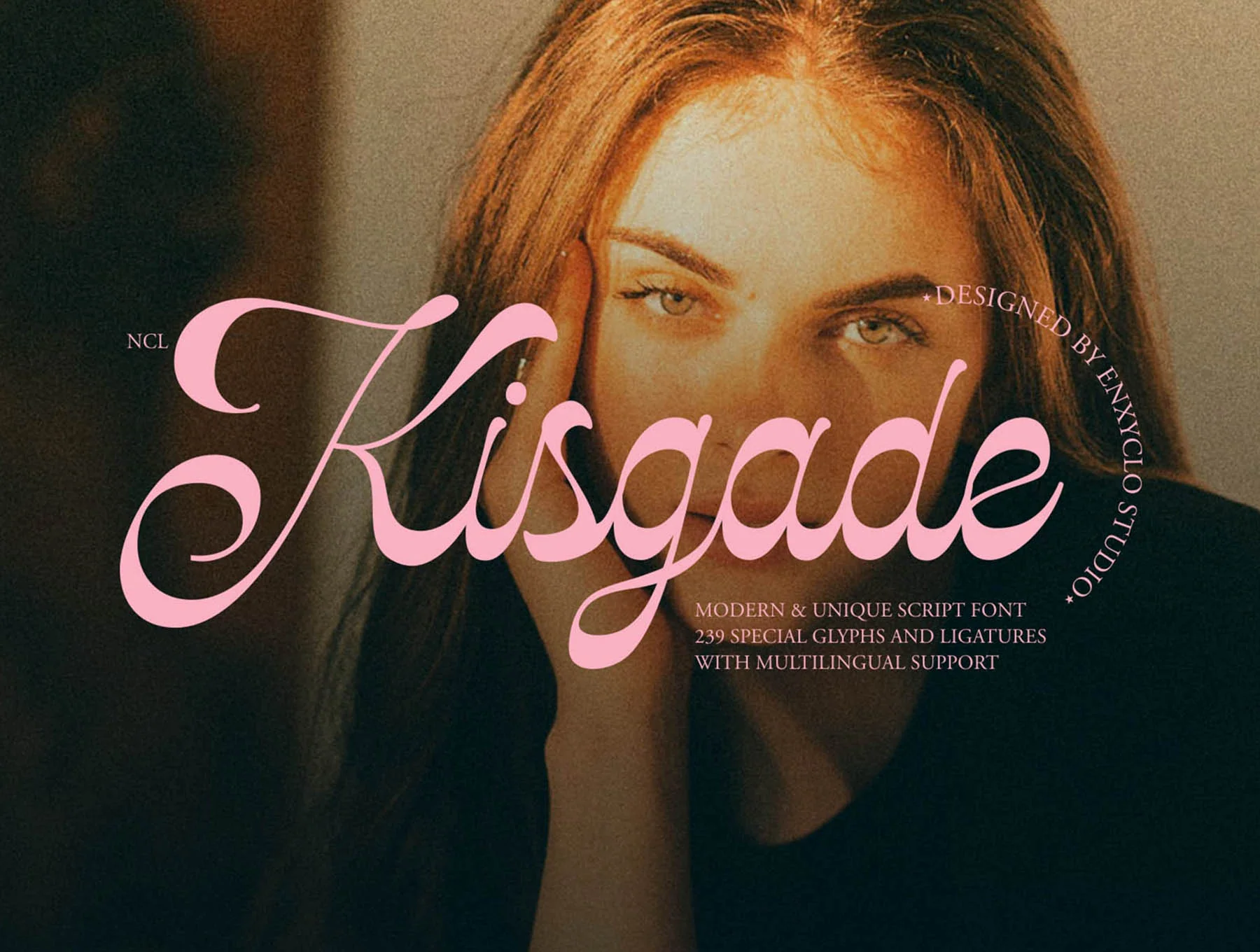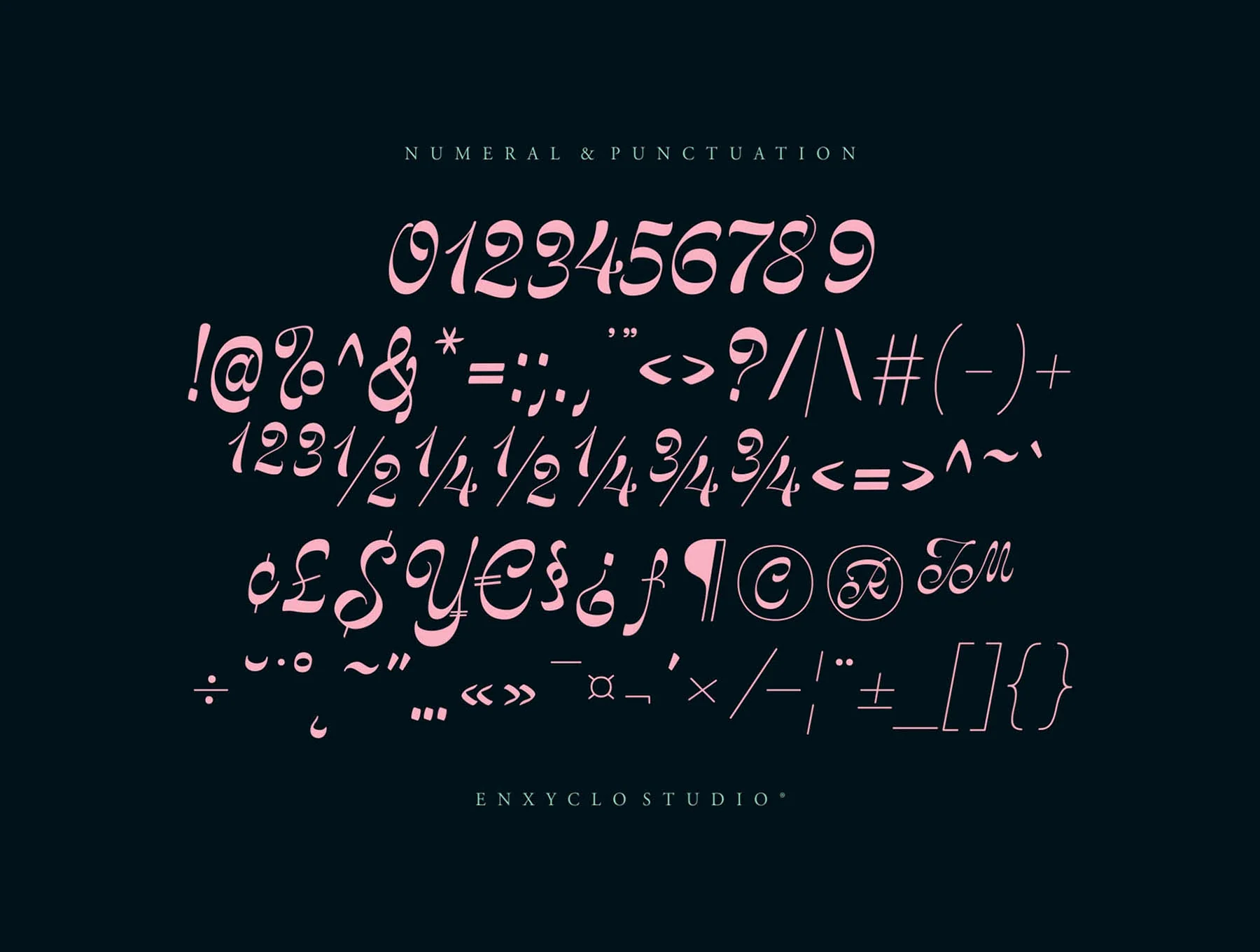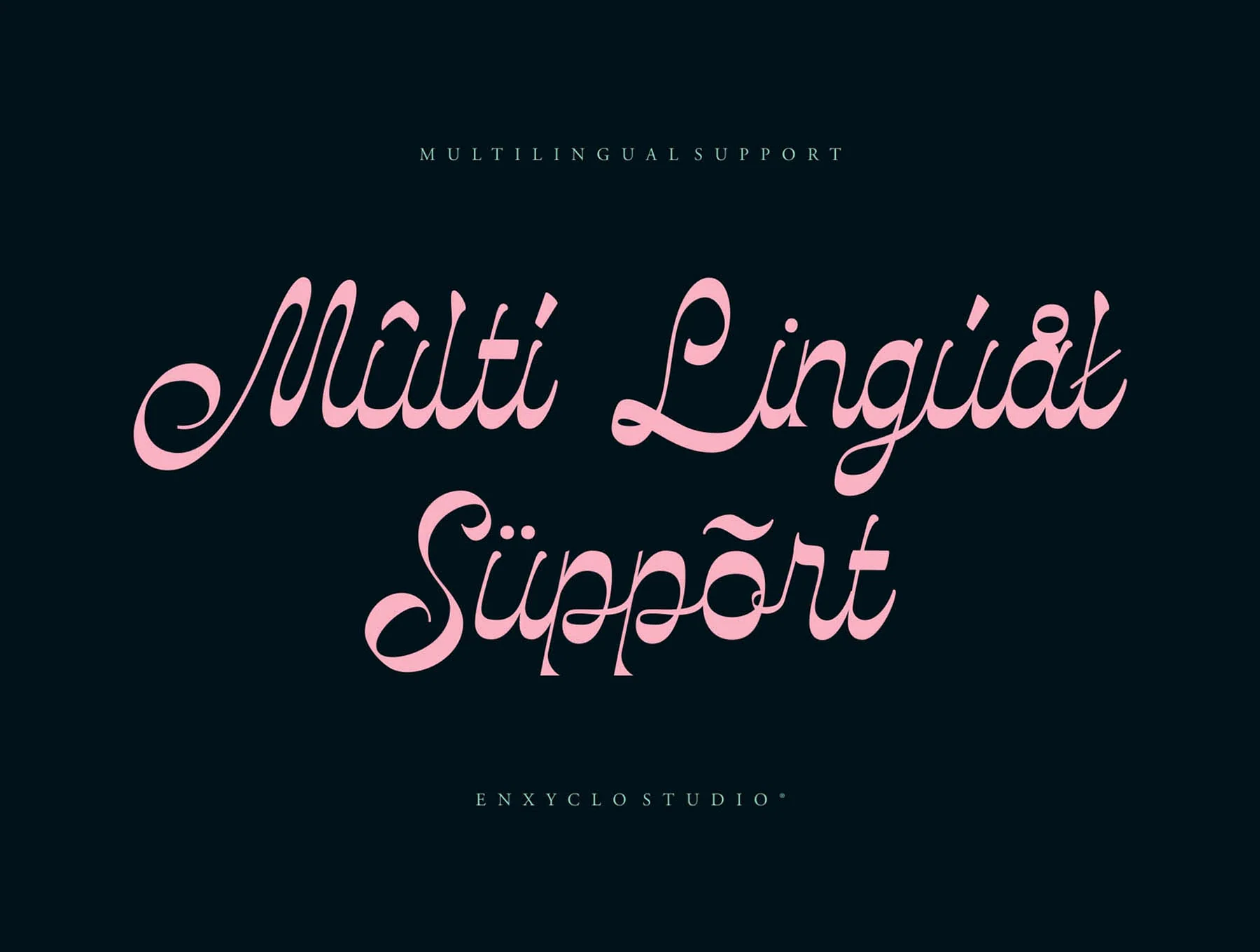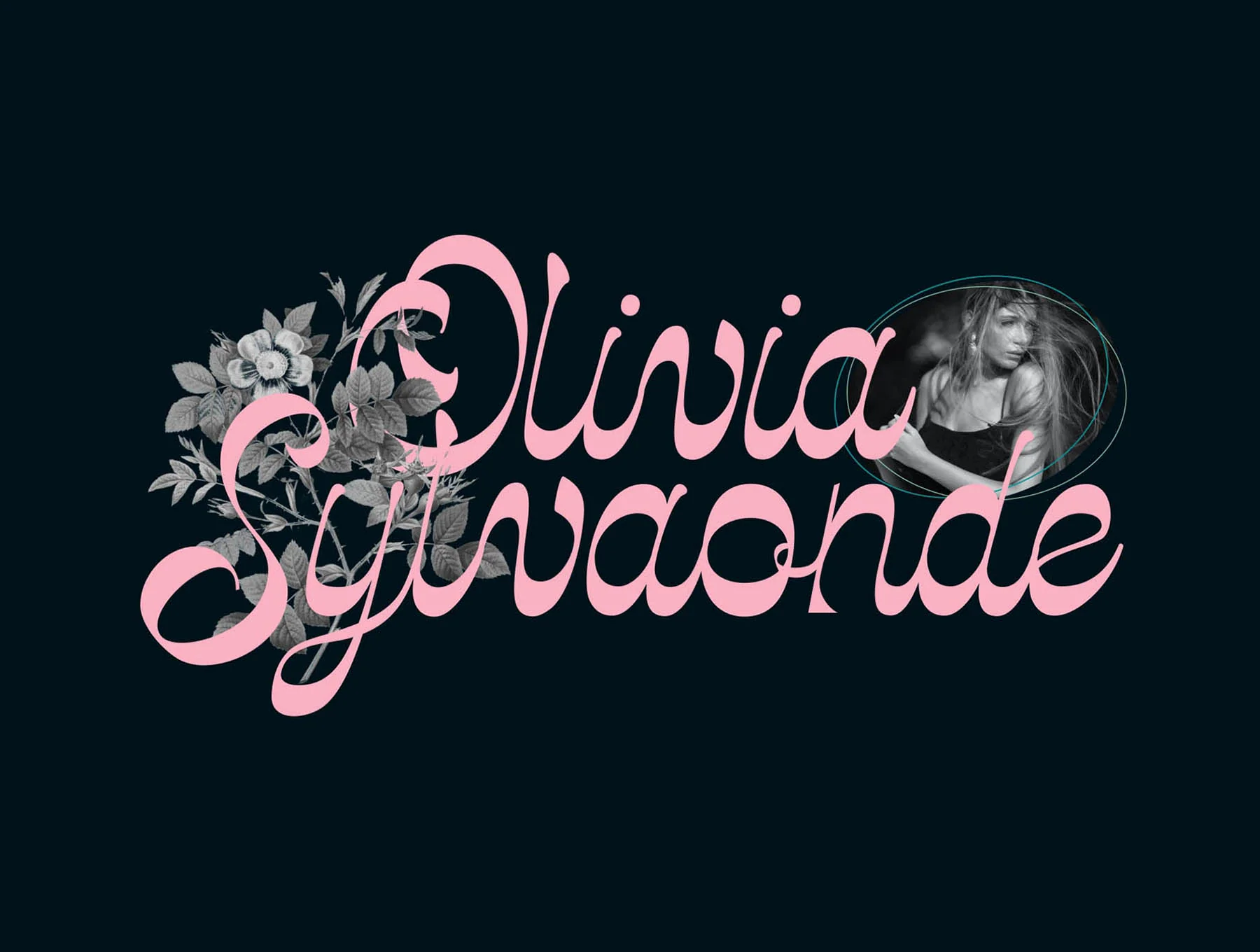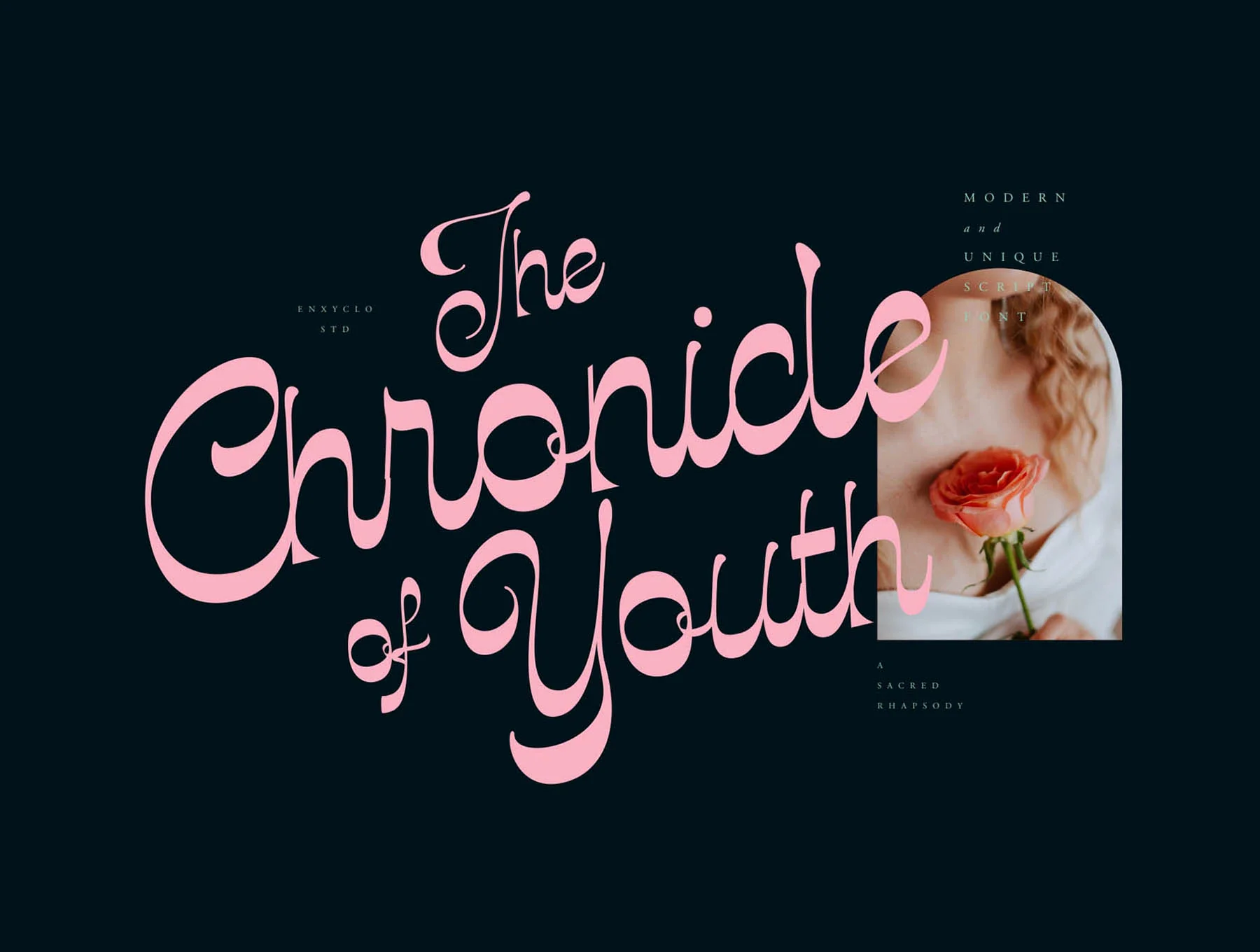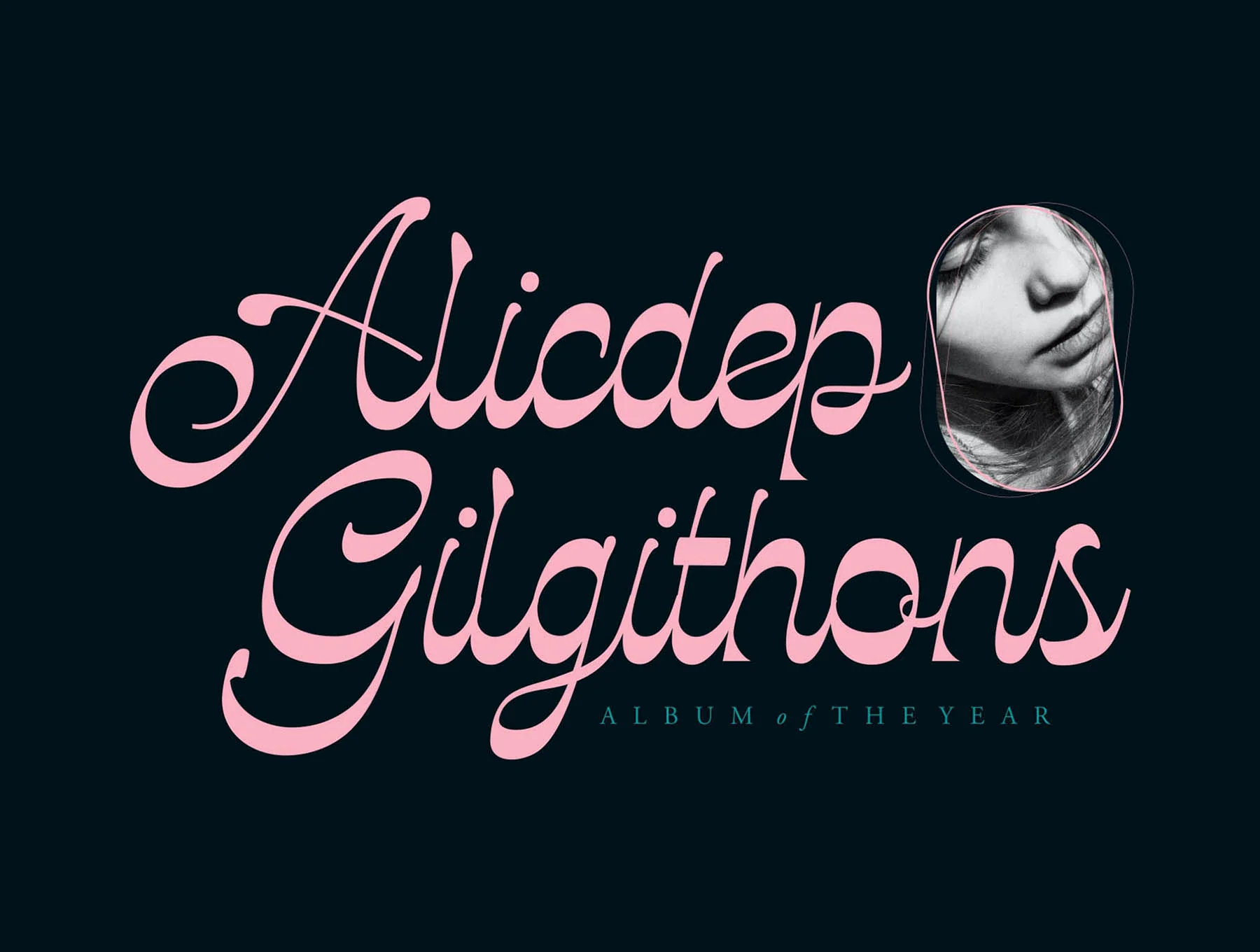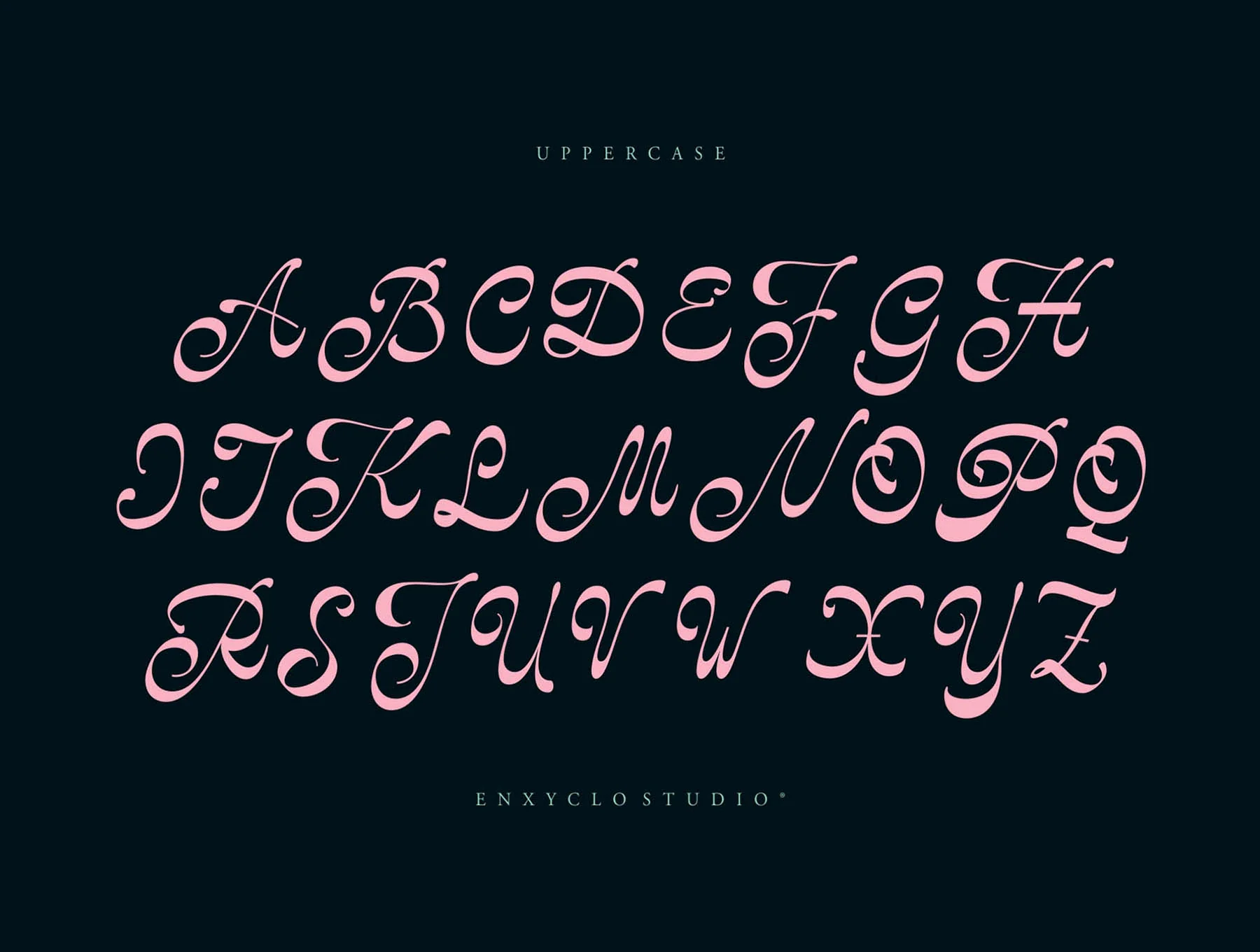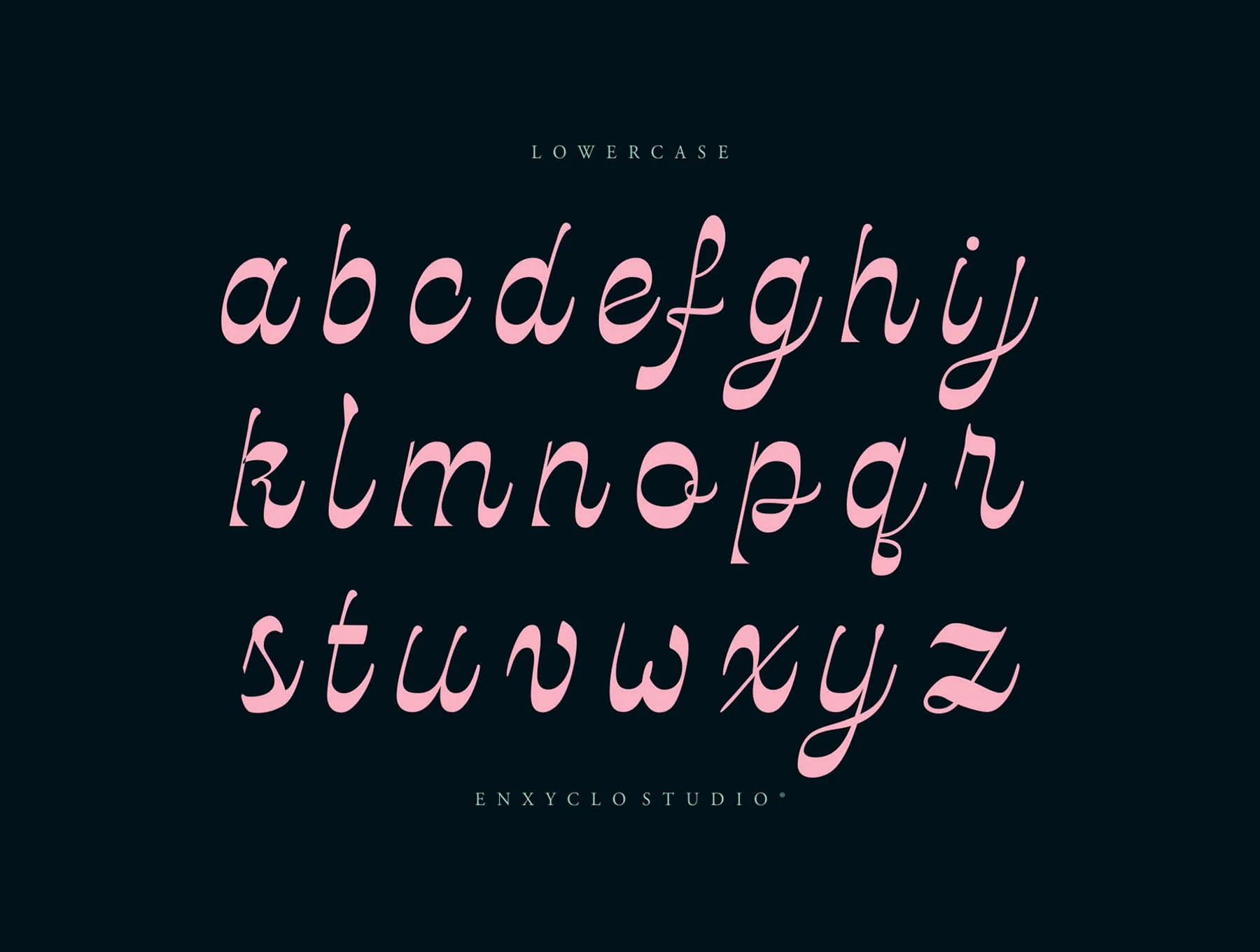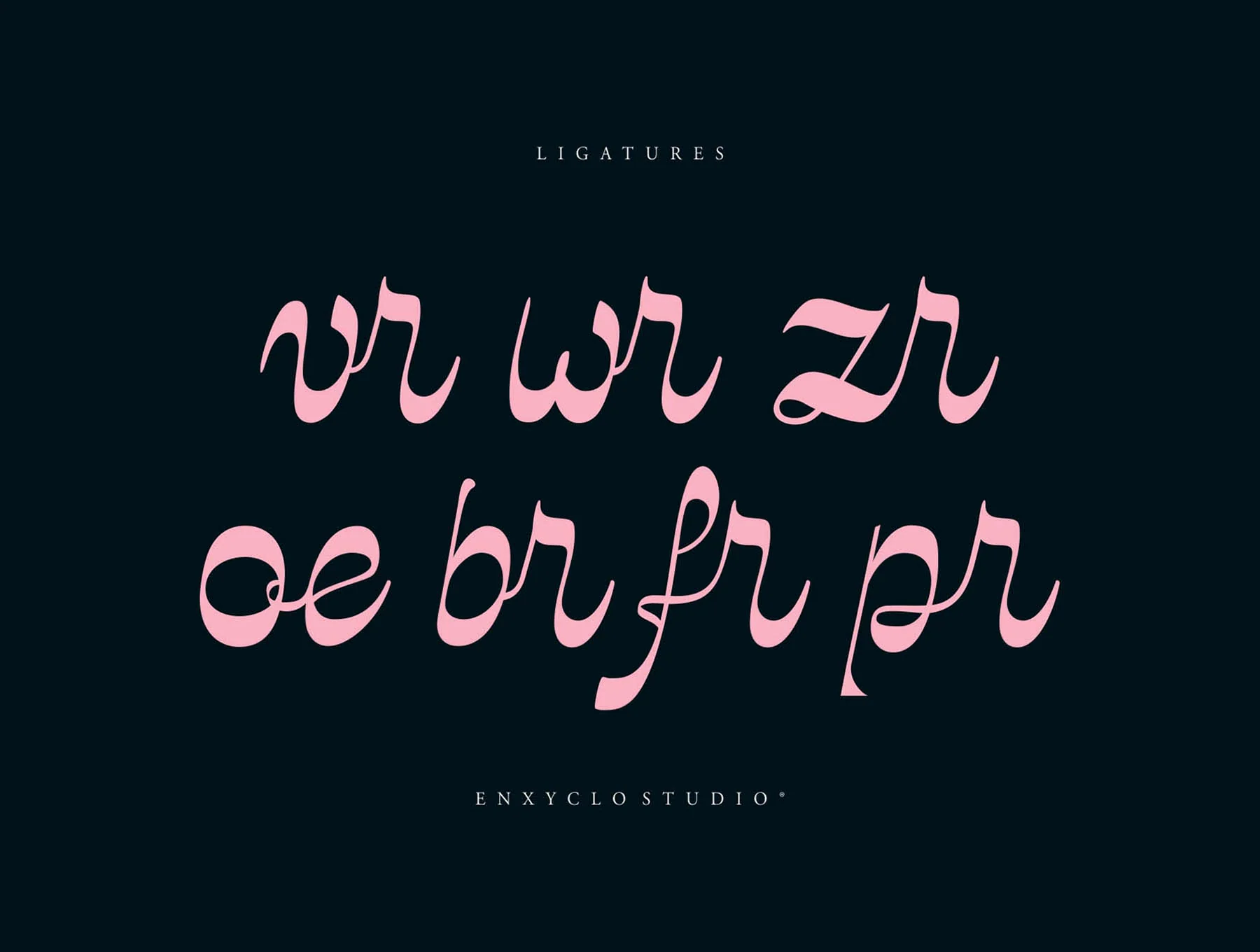
NCL Kisgade Font
Contemporary distinctive calligraphy typeface
Includes 239 glyph characters
Capital and small letterforms
Numbers, punctuation, and symbol set
Includes 239 glyph characters
Capital and small letterforms
Numbers, punctuation, and symbol set
NCL KISGADE is a sleek, refined script typeface made to enhance creative work. Designed especially for large sizes yet still charming when small, it suits weddings, romantic events, headlines, posters, billboards, magazines, websites, titles, branding, and logos. A graceful addition to any font collection, it helps projects look distinctive and supports 68 languages.